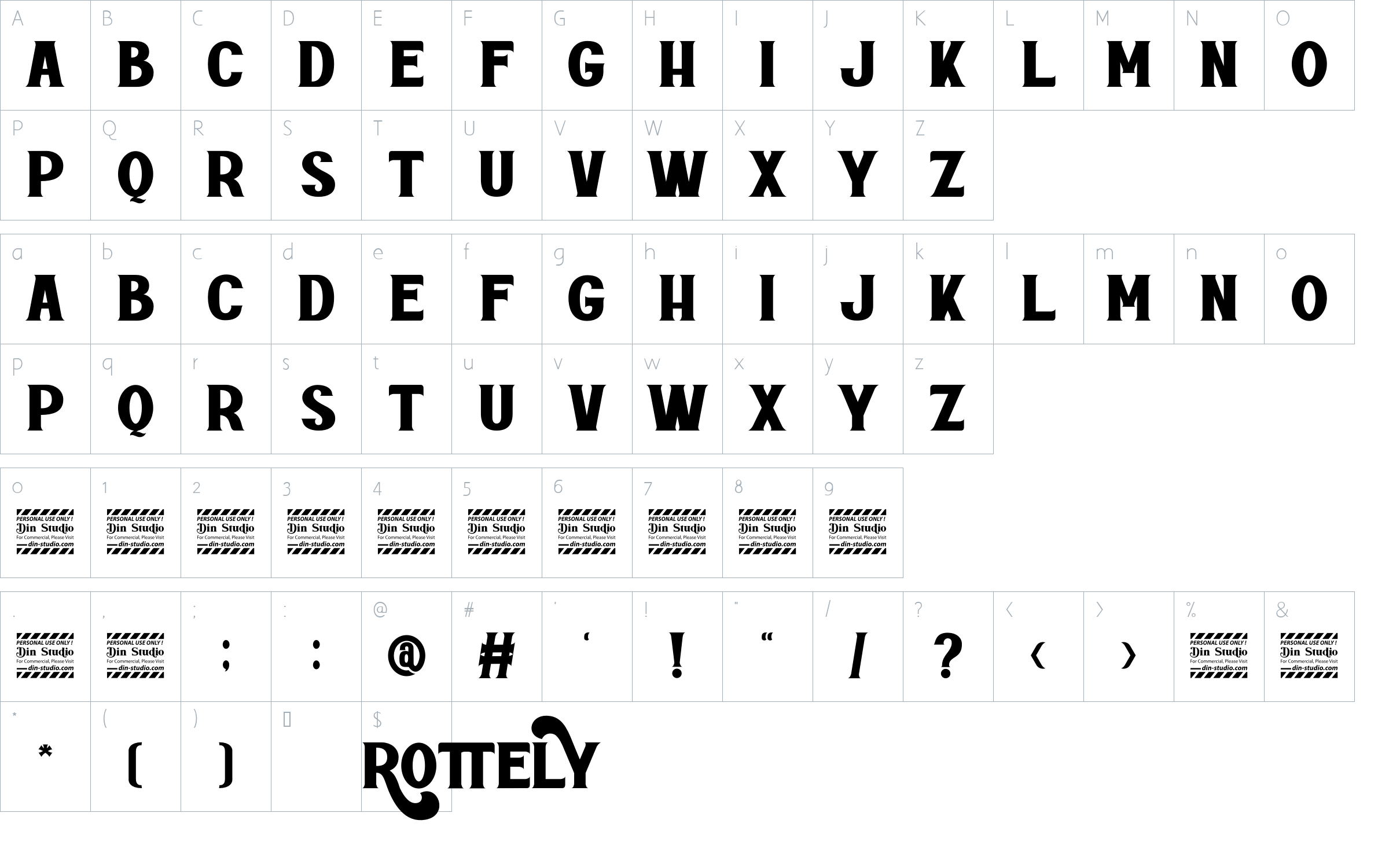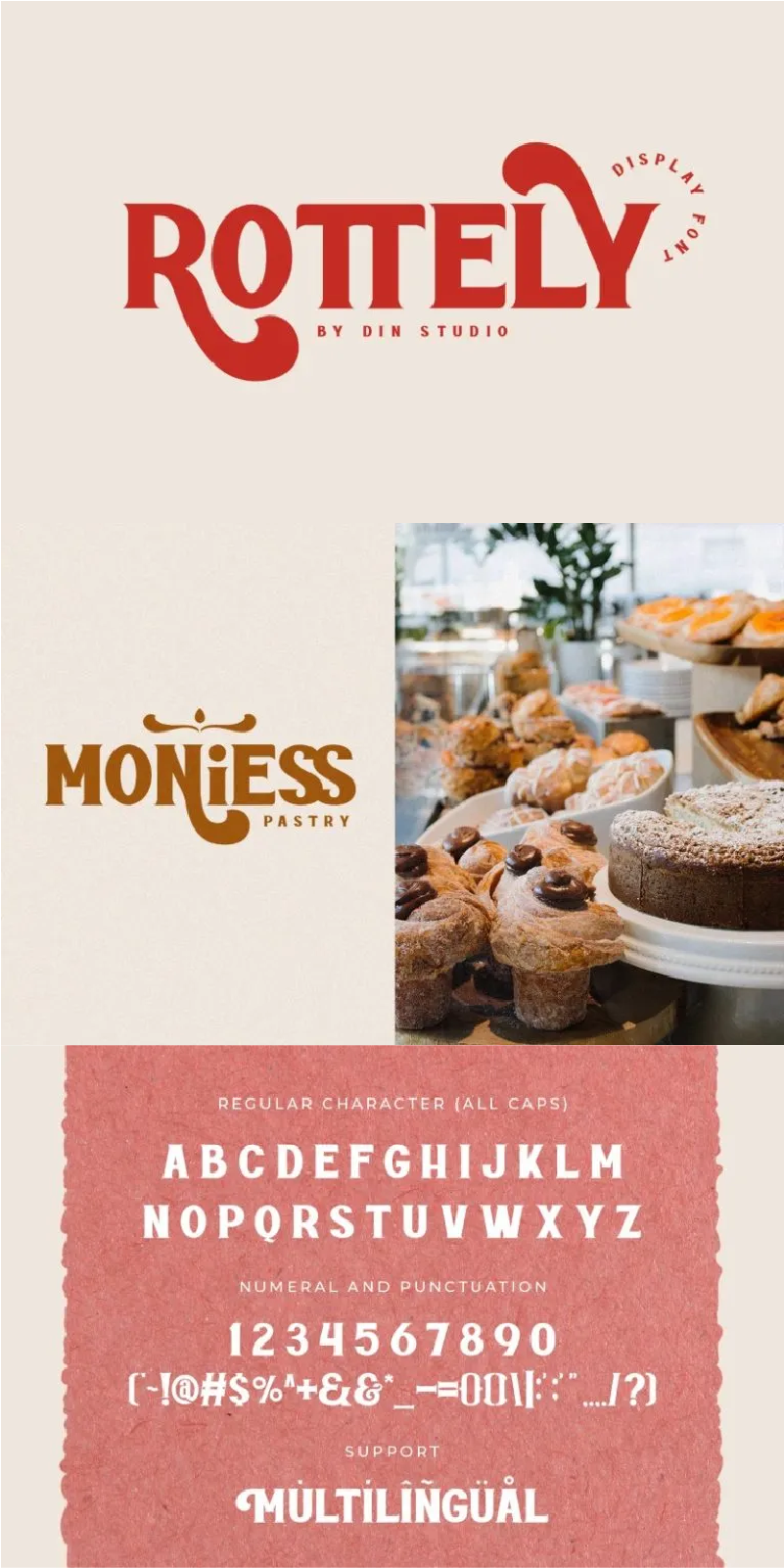
Rottely Font
About Rottely
Rottely is a beautiful display font. This font contains uppercase letters and is designed with a modern and bold style. we hope through this font, you can maximize your design! It’s suitable for brandings, logos, t-shirt printings, cards, packaging, and so on.
Rottely Display Font includes ligatures, numerals and punctuations. See the previews above to get to know how to use them. Happy designing!
Features include :
-Accents (Multilingual Characters)
-12 Ligatures
-97 Alternates
-Bonus ornament (EPS)